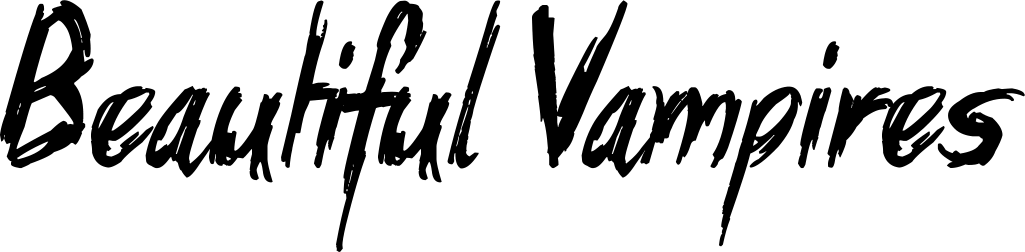
Beautiful Vampires Font
Beautiful Vampires is a font with a creative design and high visual appeal. Beautiful Vampires is a script font that reminds the audience of Dracula movies and thus draws their attention. This font does not support numbers or punctuation. This font conveys a sense of excitement to the audience and is ideal for designing movie posters and video games.